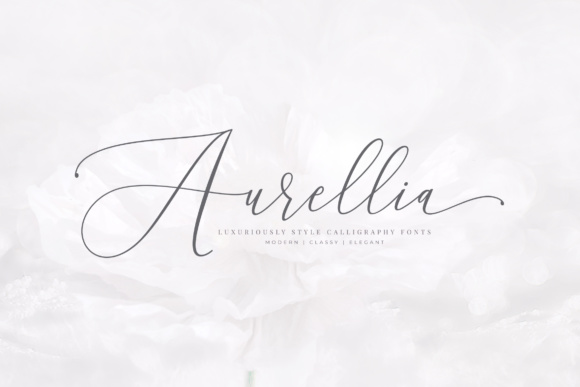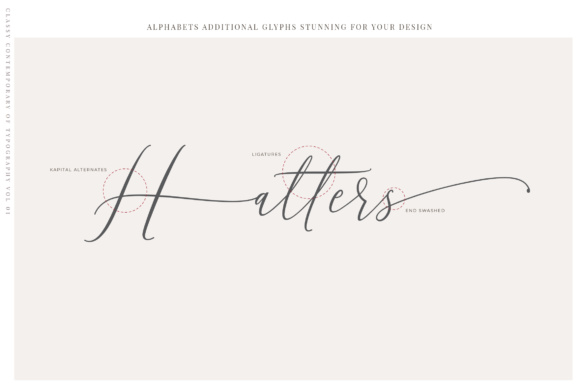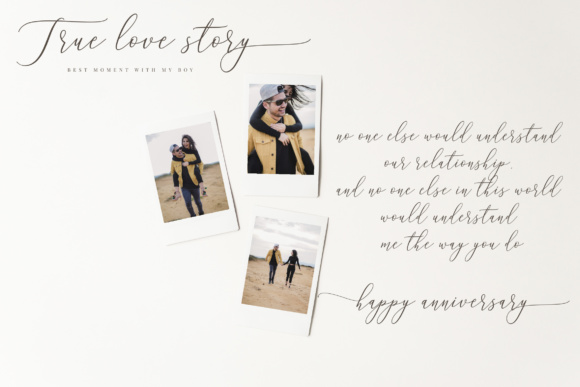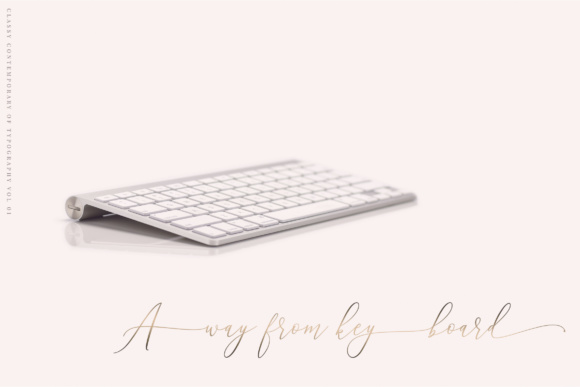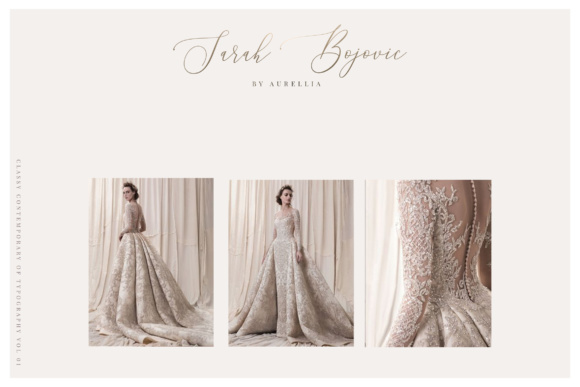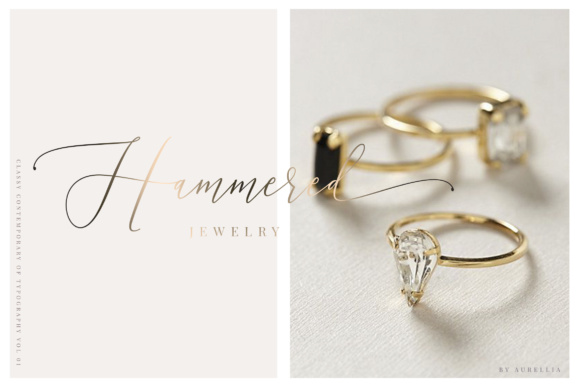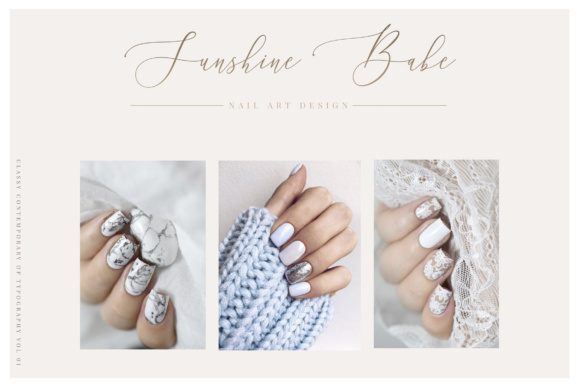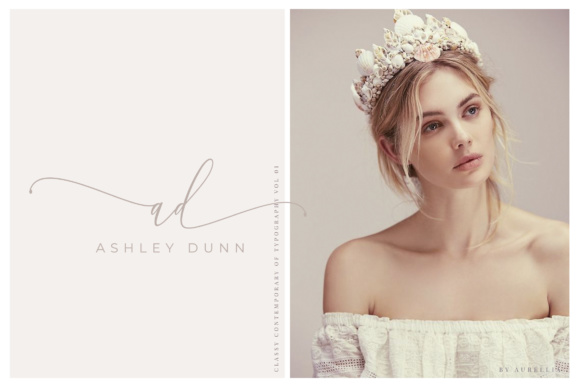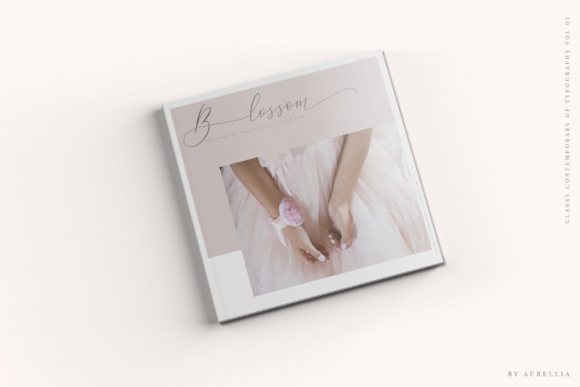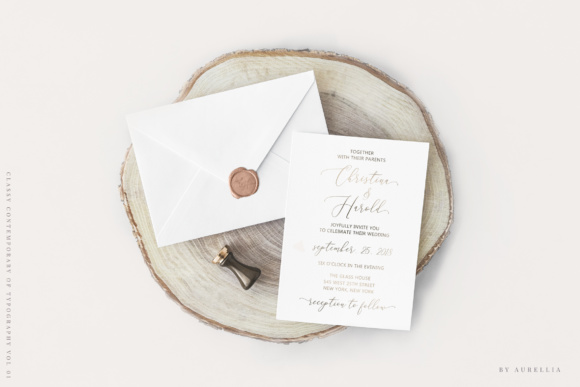
Aurellia Font
About Aurellia Font
Aurellia is a classy and gorgeous handwritten font with a distinct, elegant quality. This feminine font works well in romantic designs, and comes with stylistic alternates so you can create amazingly luxurious typographic looks easily.